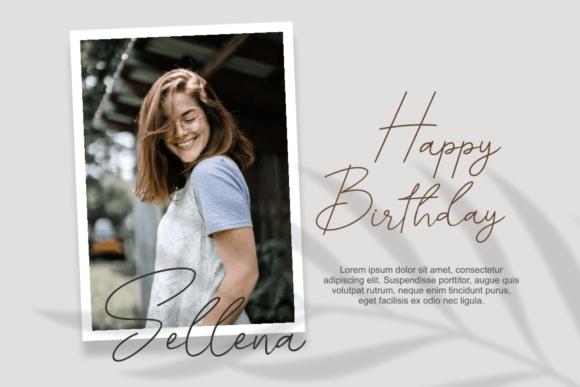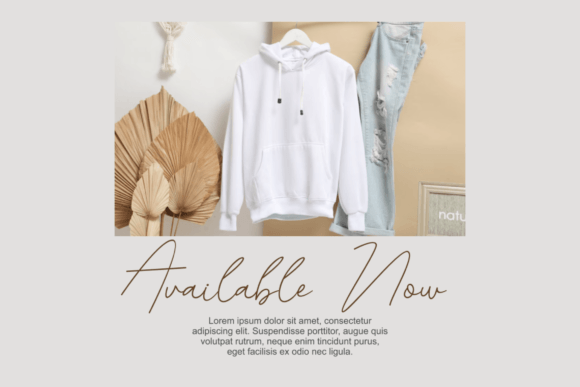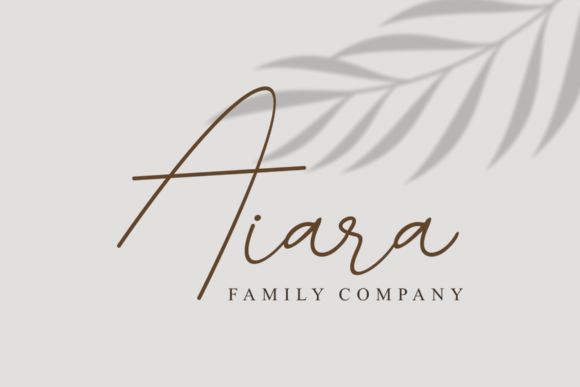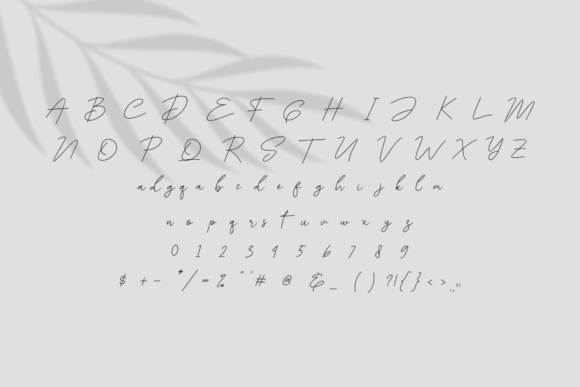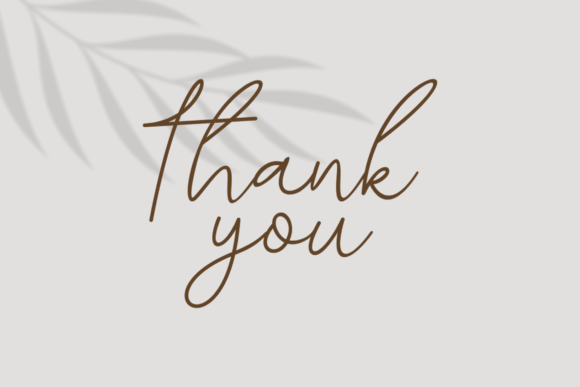
Introduction to Belalatia Font
Belalatia is a thin and authentic script font.
The font is suitable for any branding project like logo, t-shirt printing, watermarks, and many more It will look outstanding in a wide range of contexts.
Key Features of Belalatia Font